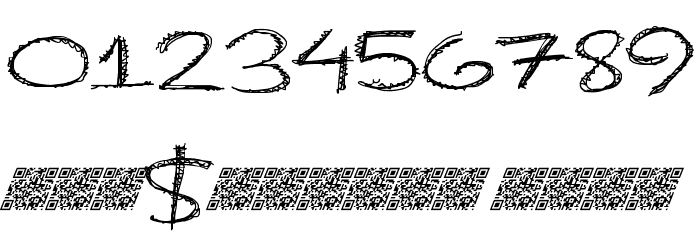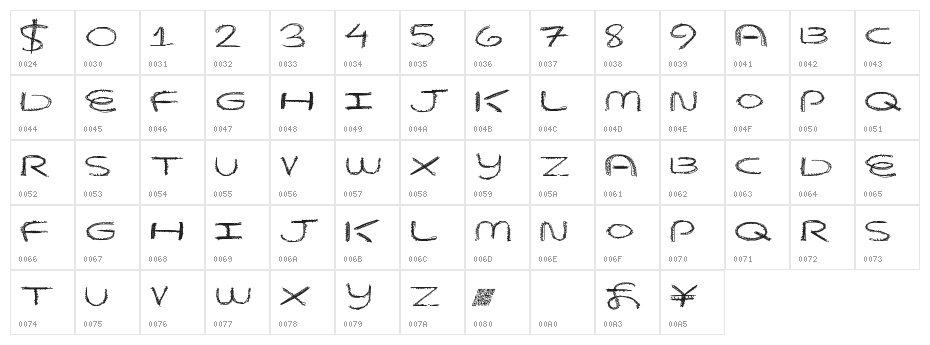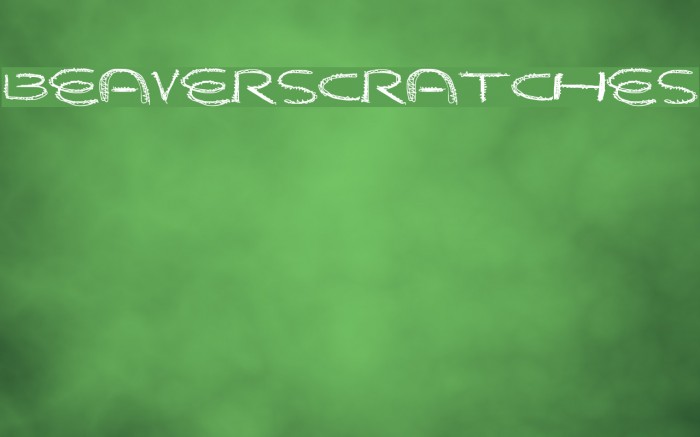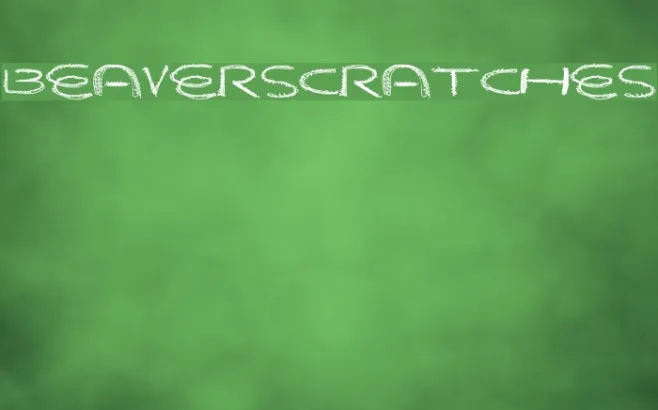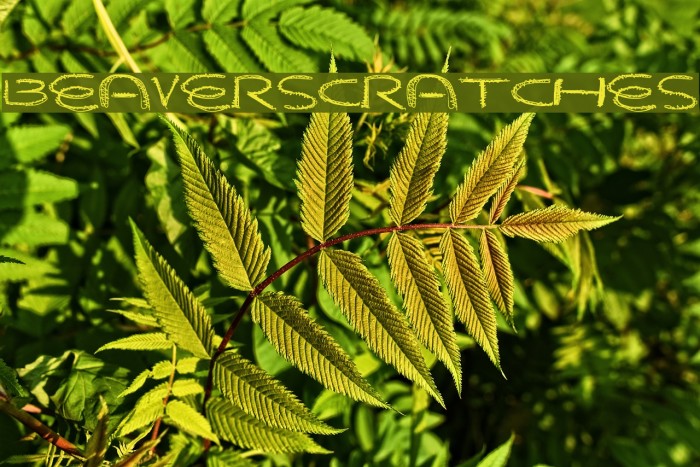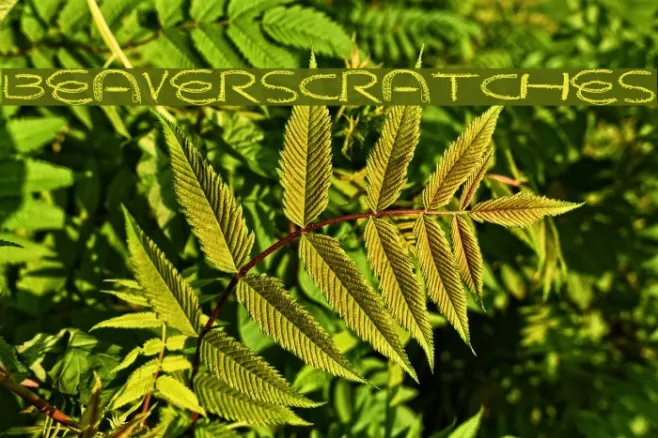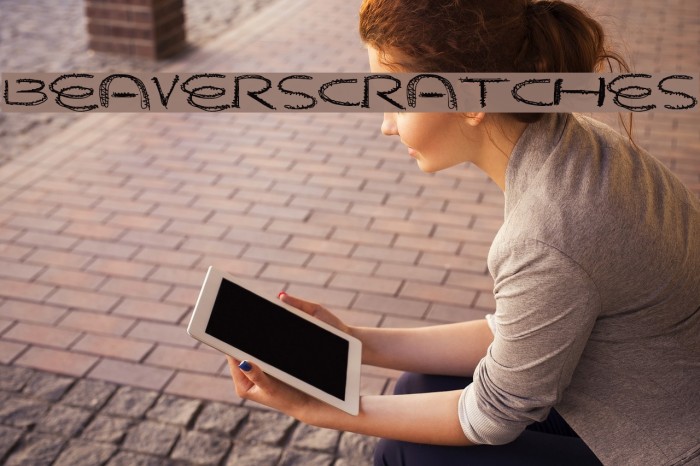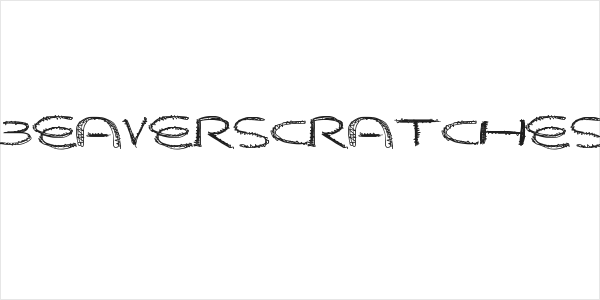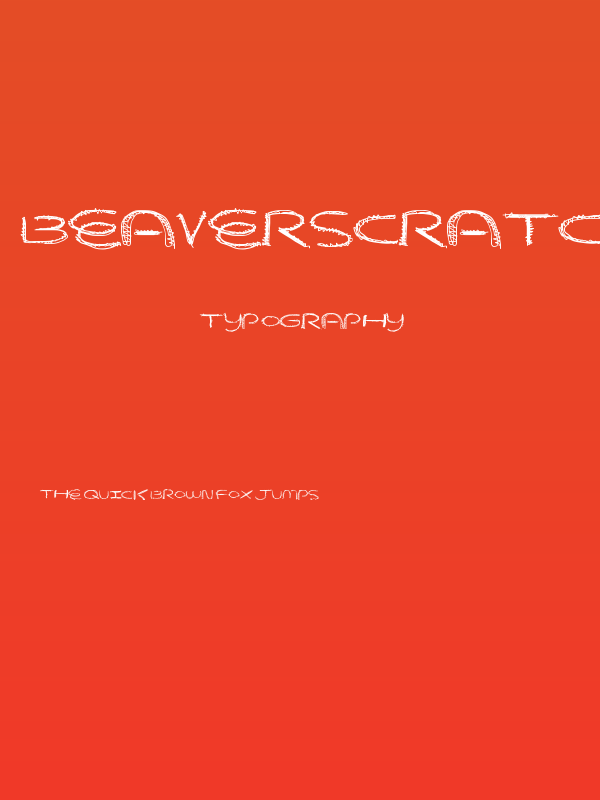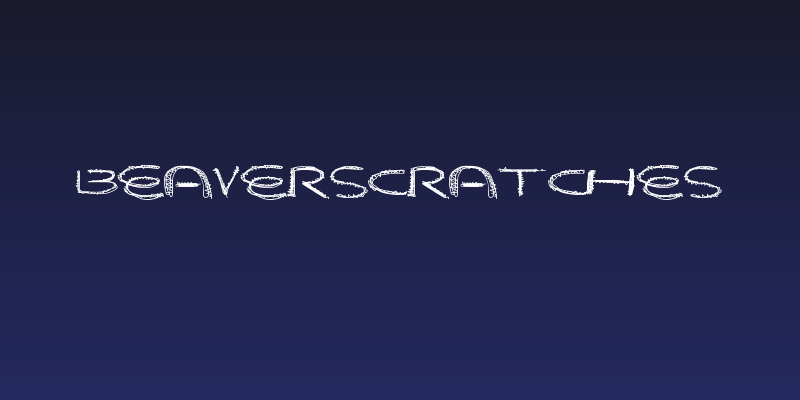
BeaverScratches Font
BeaverScratches Description
This font features a unique, textured design that mimics the appearance of scratches or rough etchings. Each character is crafted with a distinct, hand-drawn style, giving it a rugged and organic feel. The uppercase and lowercase letters maintain a consistent aesthetic, with slightly irregular edges that enhance the font's natural look. Numbers and special characters are equally detailed, ensuring a cohesive appearance across all text. The font's artistic flair makes it ideal for projects that require a touch of creativity and individuality.
| Use Case | Logos, Posters, Artistic projects |
| Proposed Projects | Ideal for artistic projects, posters, album covers, and branding that requires a creative and rugged touch. |